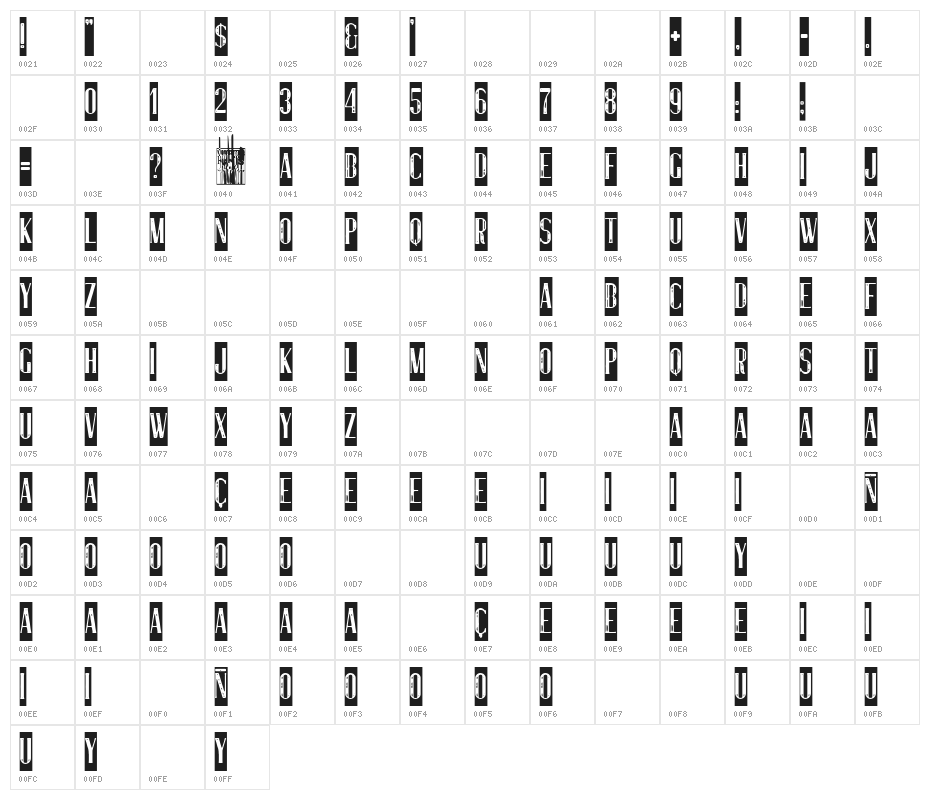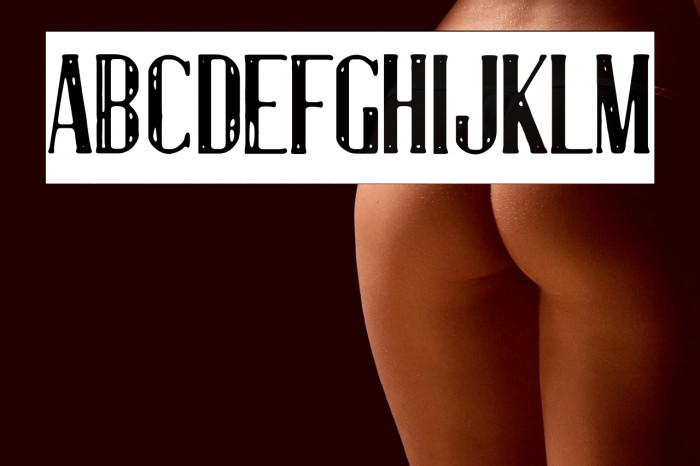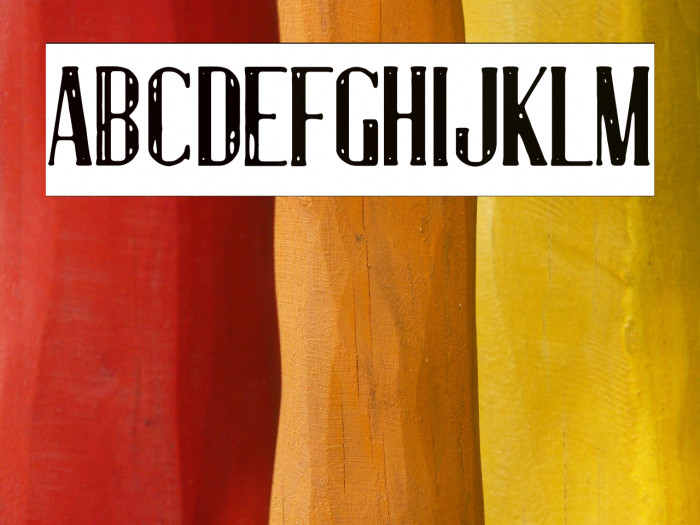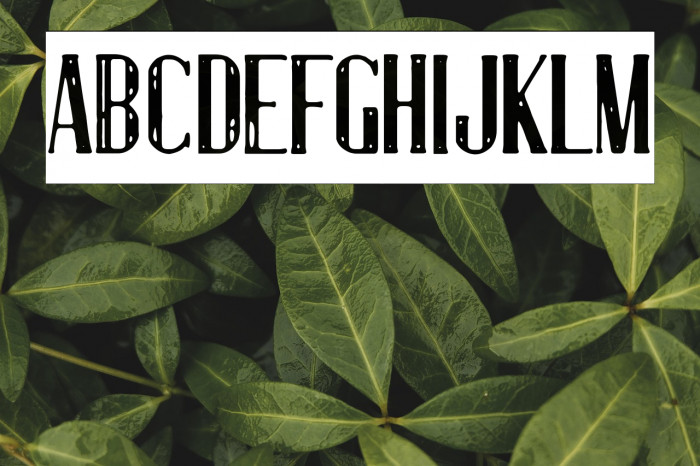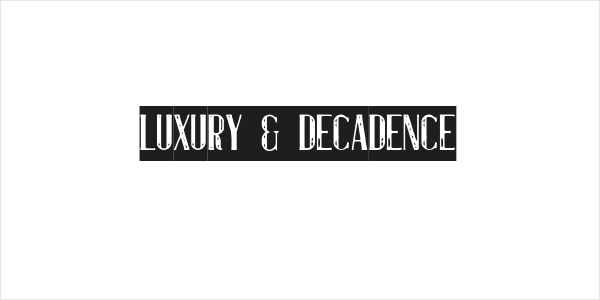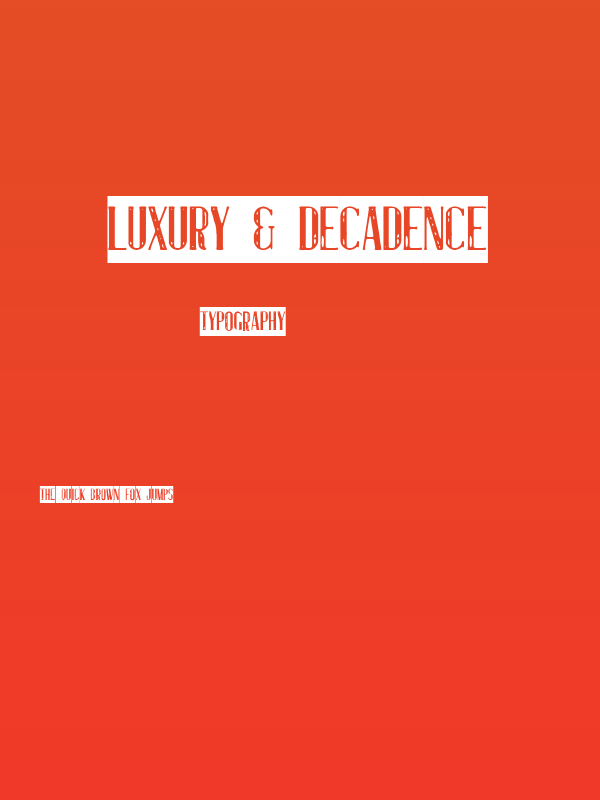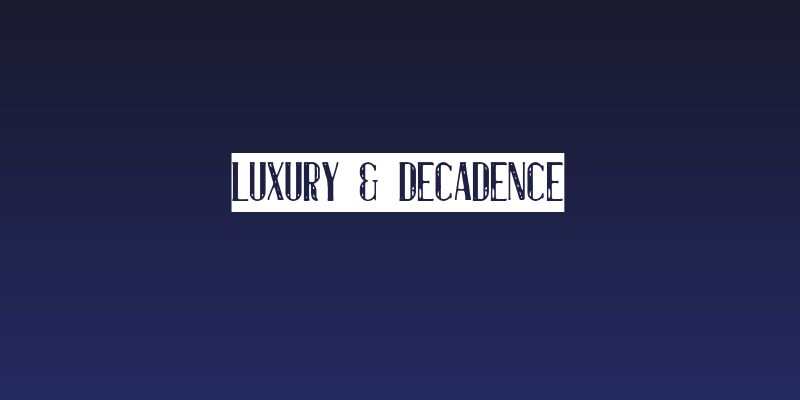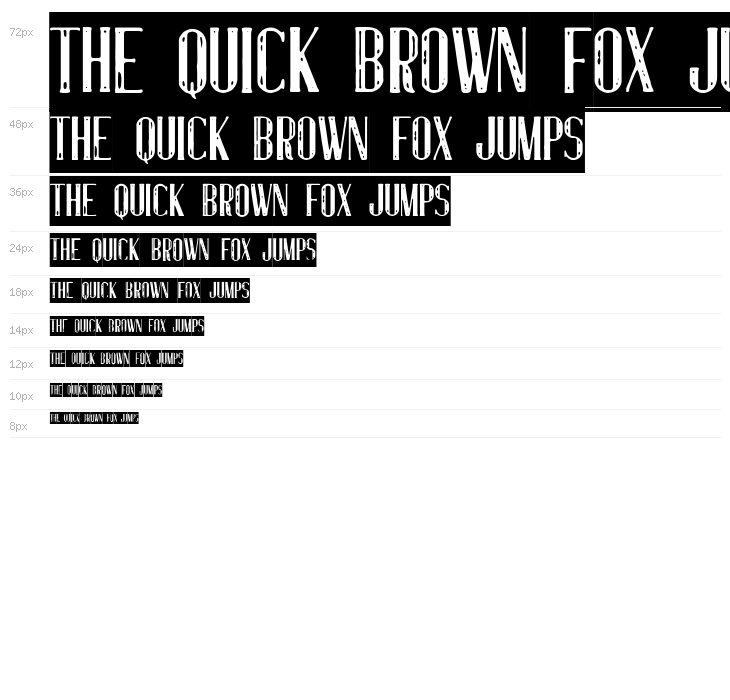
Luxury & Decadence Font
Luxury & Decadence Description
This font exudes a sense of luxury and opulence, characterized by its bold and decorative style. The letters are elongated and feature intricate detailing, with small circular embellishments that add a touch of elegance. The uppercase and lowercase letters maintain a consistent design, ensuring readability while still offering a unique flair. The numbers and special characters are crafted with the same attention to detail, making them suitable for a variety of applications. The overall aesthetic is reminiscent of vintage signage, yet it retains a modern twist that makes it versatile for contemporary use.
| Overall Style | Vintage, Decorative |
| Proposed Projects | Ideal for luxury branding, high-end product packaging, event invitations, and decorative signage. |